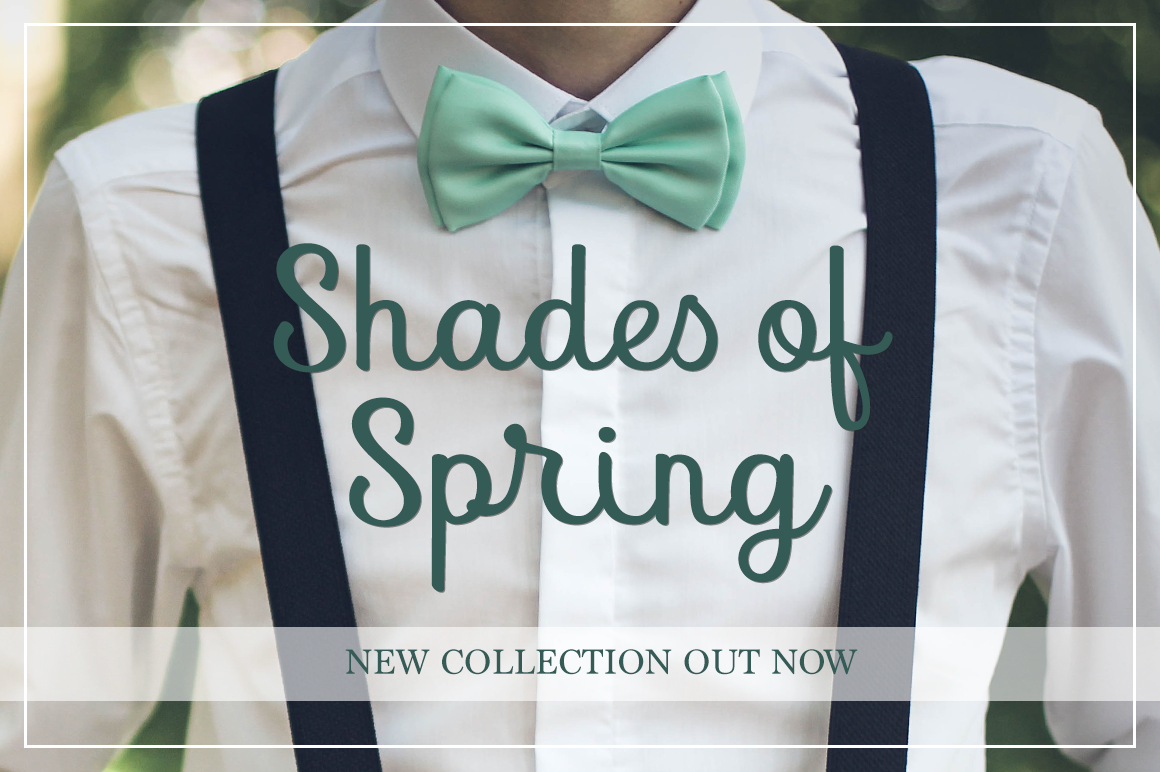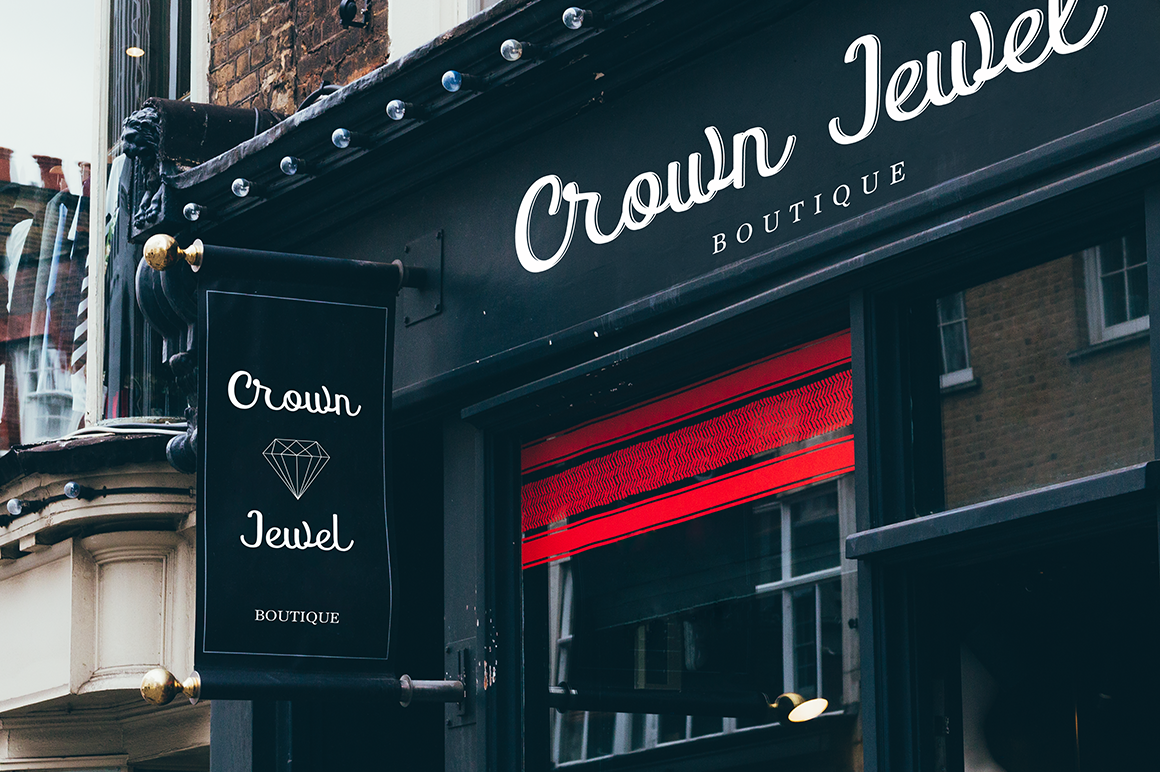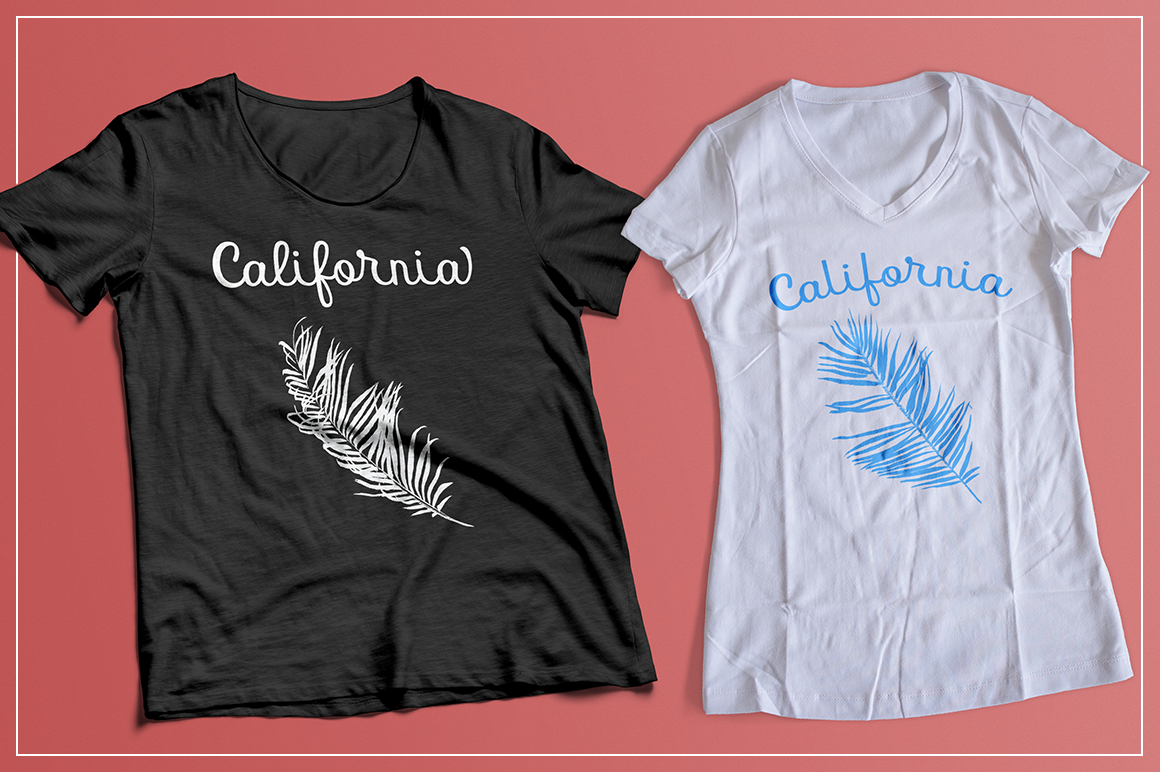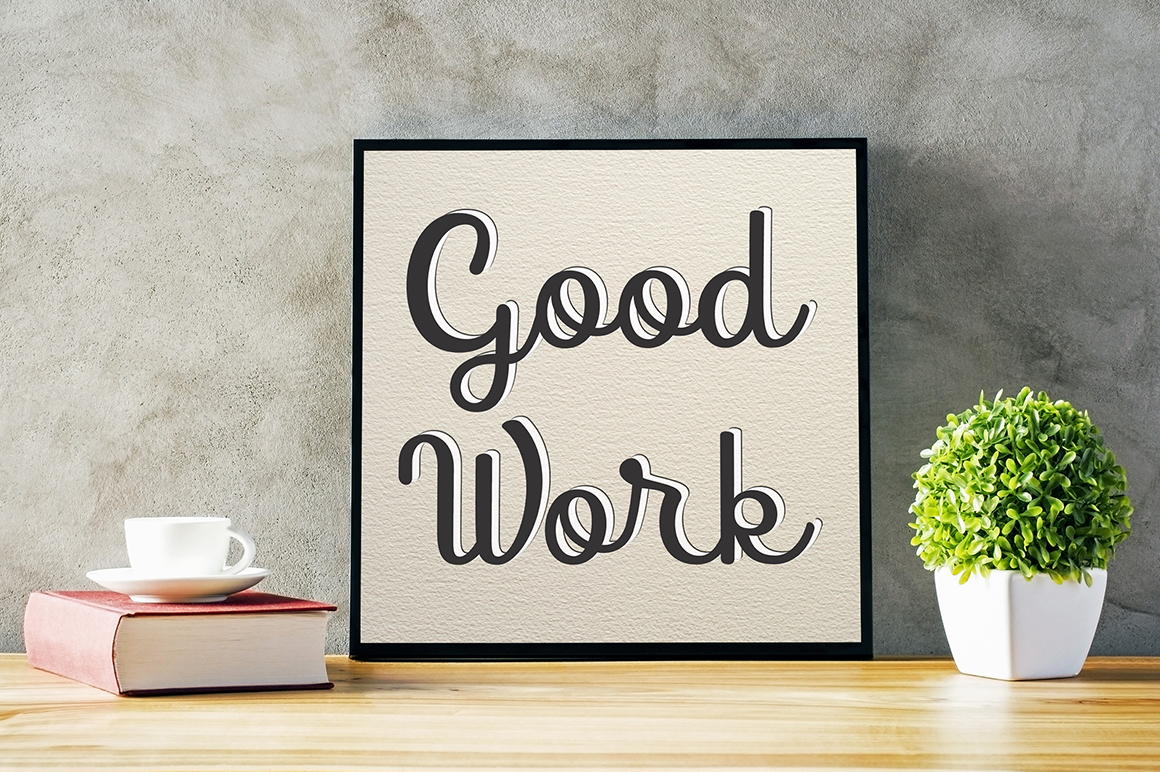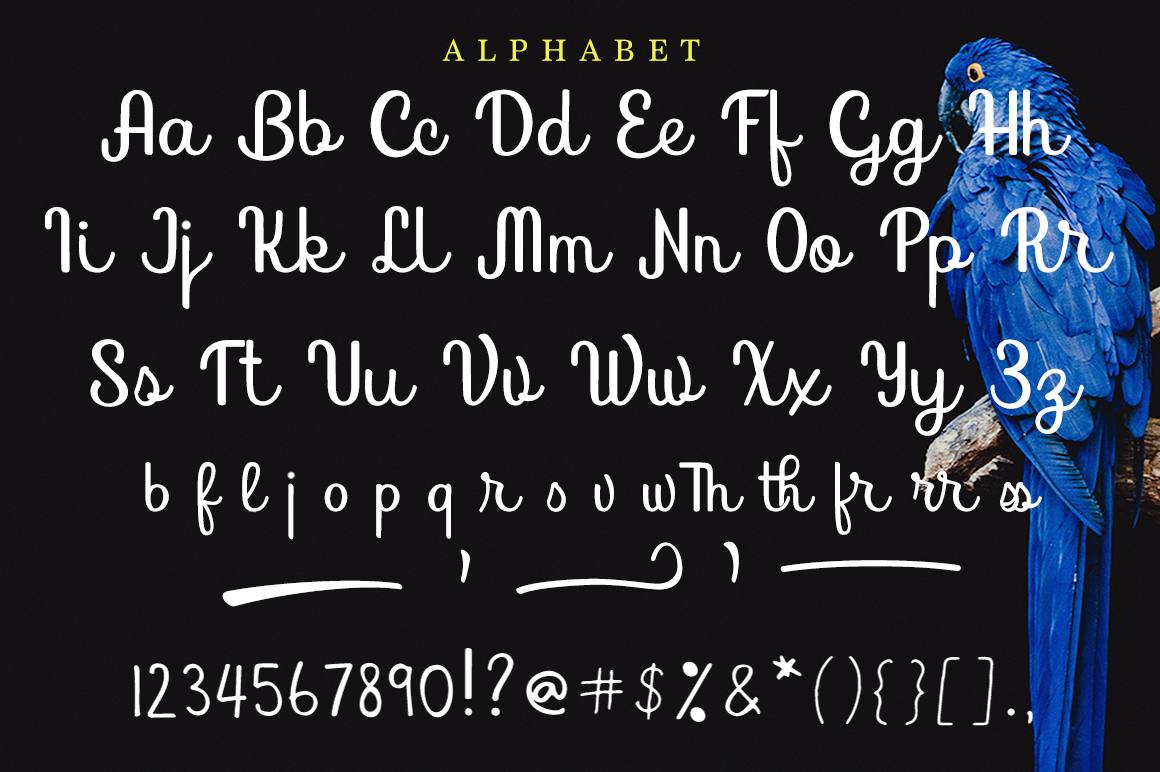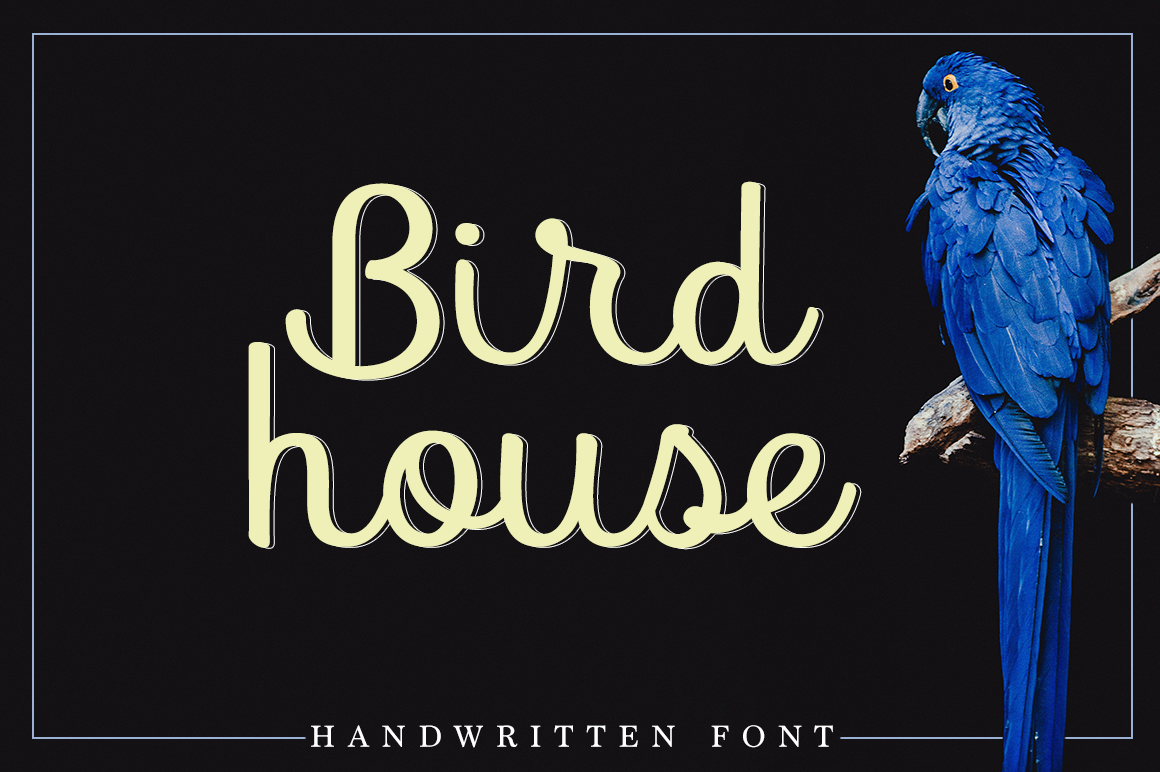
The Bird House Font: A Designer’s Dream Come True
The Bird House font is a gorgeous script font that is perfectly suited for displays and headline designs. Its flowing curves and elegant lines make it a great logotype option, and its cool, edgy vibe makes it perfect for editorial and fashion applications.
- ✨ The Bird House font is incredibly versatile and can be used for a wide range of design projects, from logos and branding to editorial and fashion designs.
- ✅ The font has a wide range of OpenType features, including glyphs and stylistic alternates, which give designers a lot of creative freedom.
- 💫 The font is beautifully crafted, with elegant lines and flowing curves that make it a joy to work with.
- 👍 The font is highly legible, even at small sizes, which makes it perfect for use in a variety of design applications.
While the Bird House font is an amazing font, there are a few things to keep in mind when working with it. 🤔
- ⚠️ The font can be a bit tricky to pair with other fonts, so it’s best to stick with fonts that have a similar feel and style.
- ⚠️ Some of the OpenType features can be a bit finicky, so be sure to experiment and play around with them to get the desired effect.
The Bird House font was designed by a team of talented designers who were inspired by the beauty of nature. According to the designers, the font was inspired by the intricate details of birdhouses and the elegant lines of bird flight. The result is a font that is both elegant and playful, with a unique personality that is sure to make your designs stand out.
| Font Name | Bird House Font |
| Author | Pasha Larin |
Q: What is the Bird House font?
A: The Bird House font is a gorgeous script font that is perfectly suited for displays and headline designs.
Q: What are the OpenType features of the Bird House font?
A: The Bird House font has a wide range of OpenType features, including glyphs and stylistic alternates.
Q: Is the Bird House font easy to read?
A: Yes, the Bird House font is highly legible, even at small sizes, making it perfect for use in a variety of design applications.